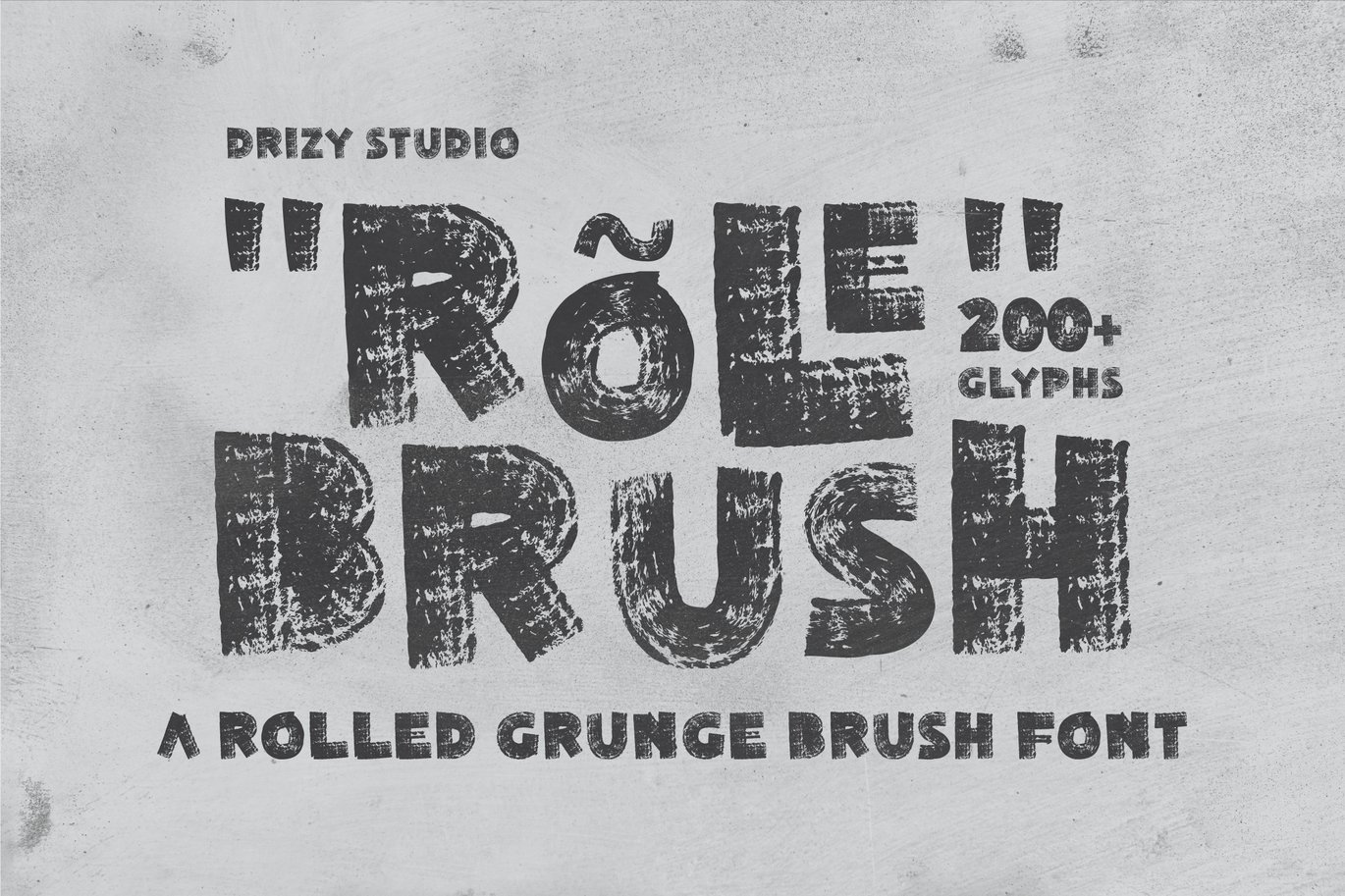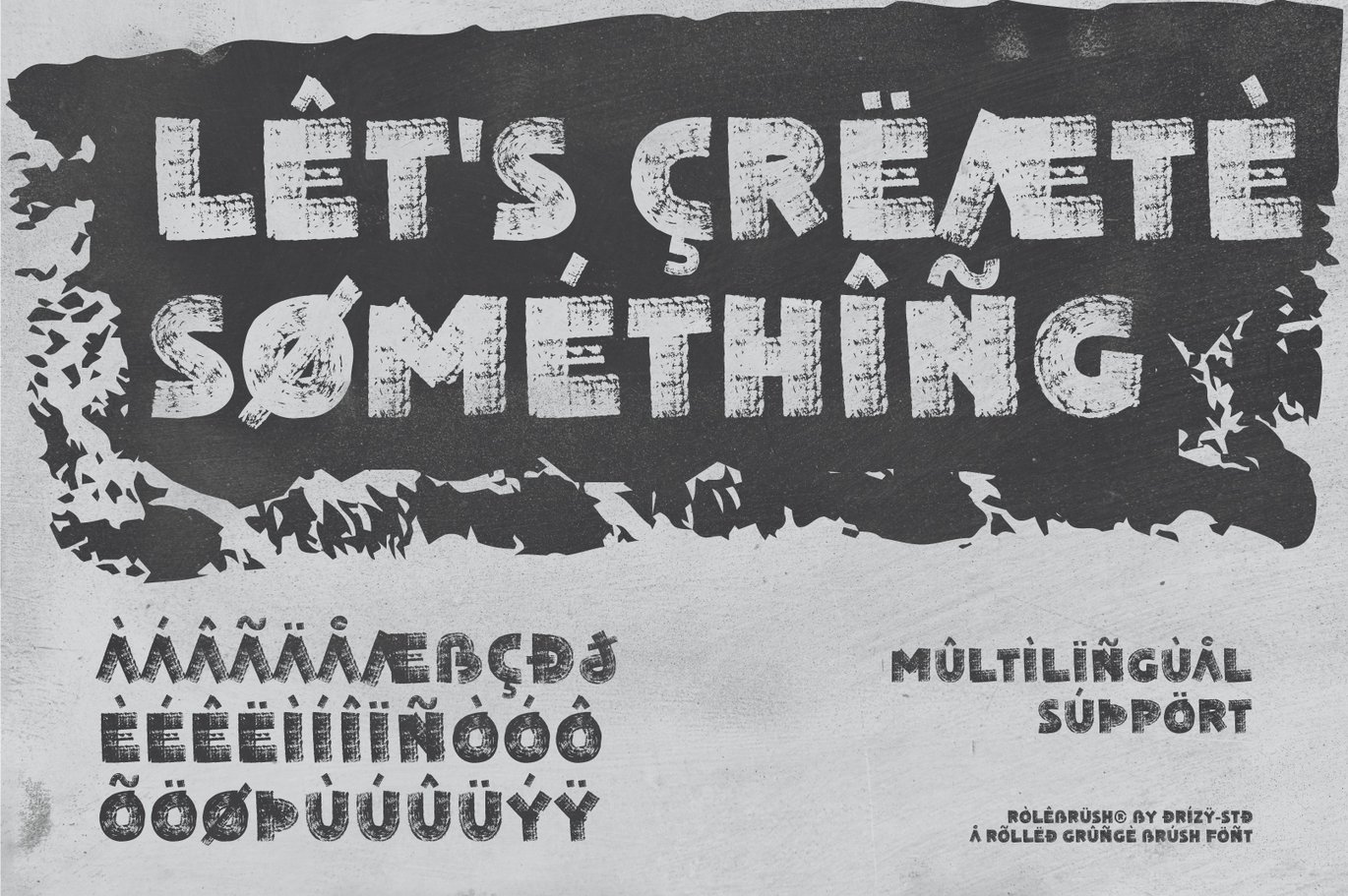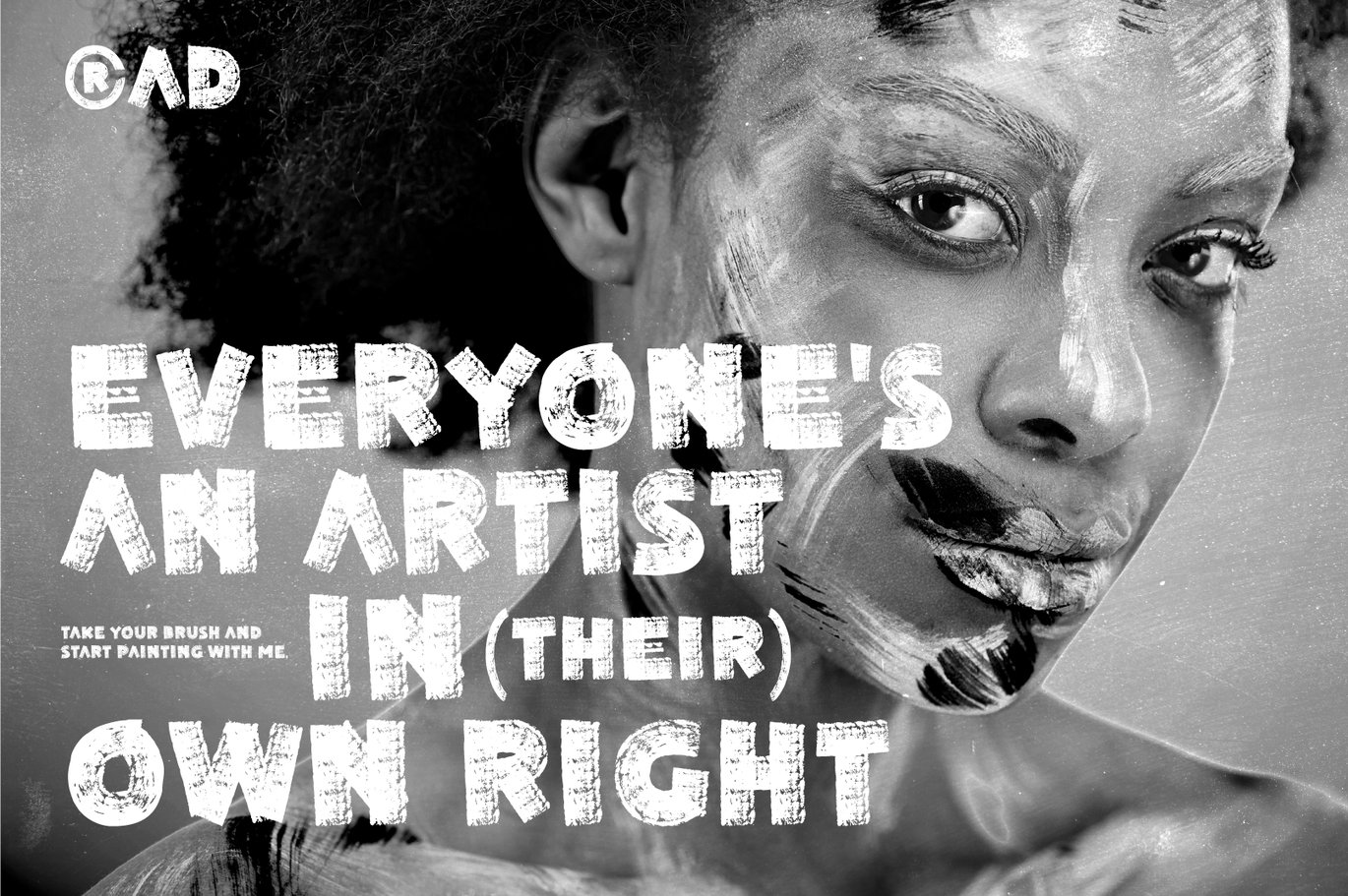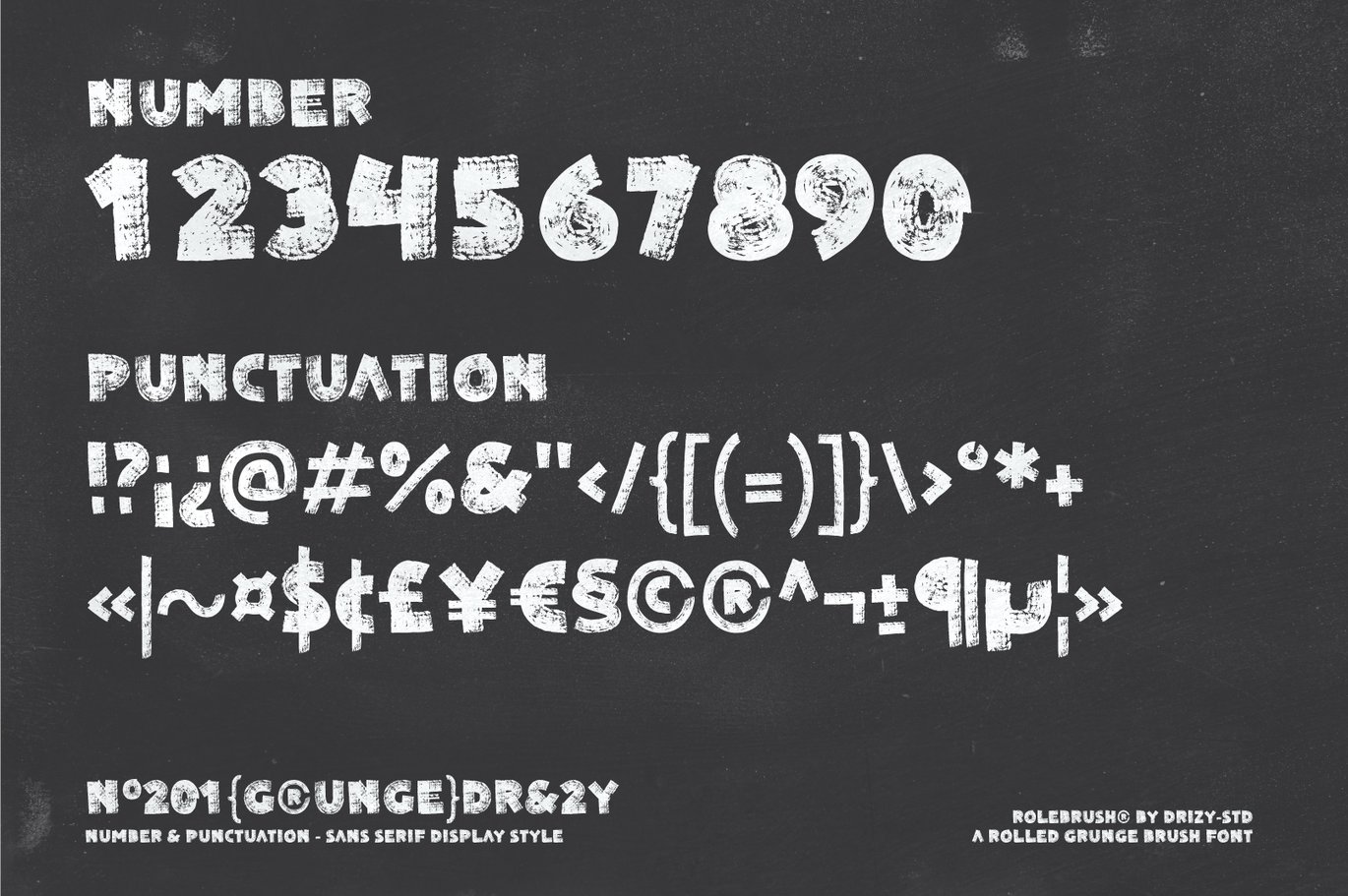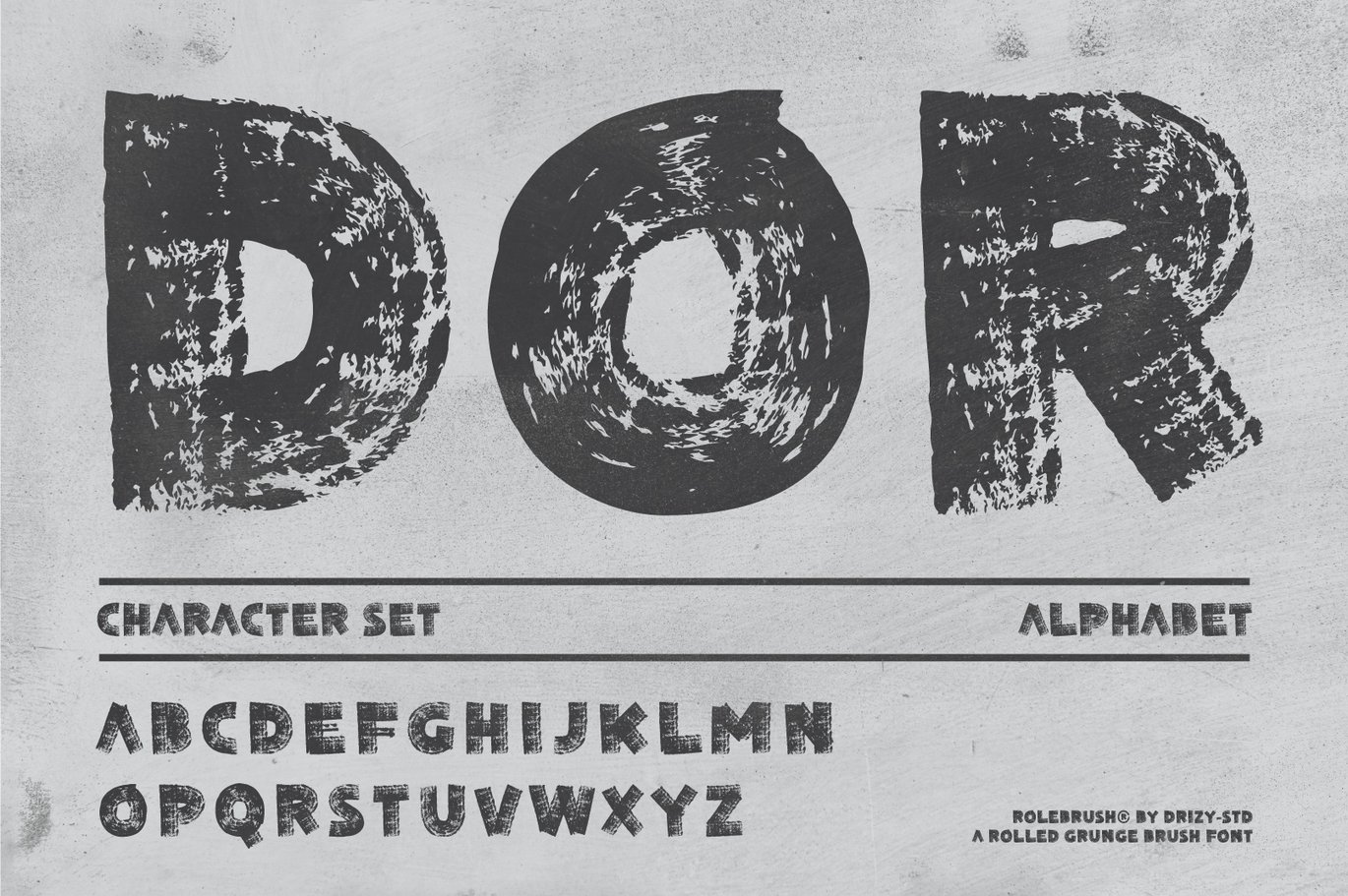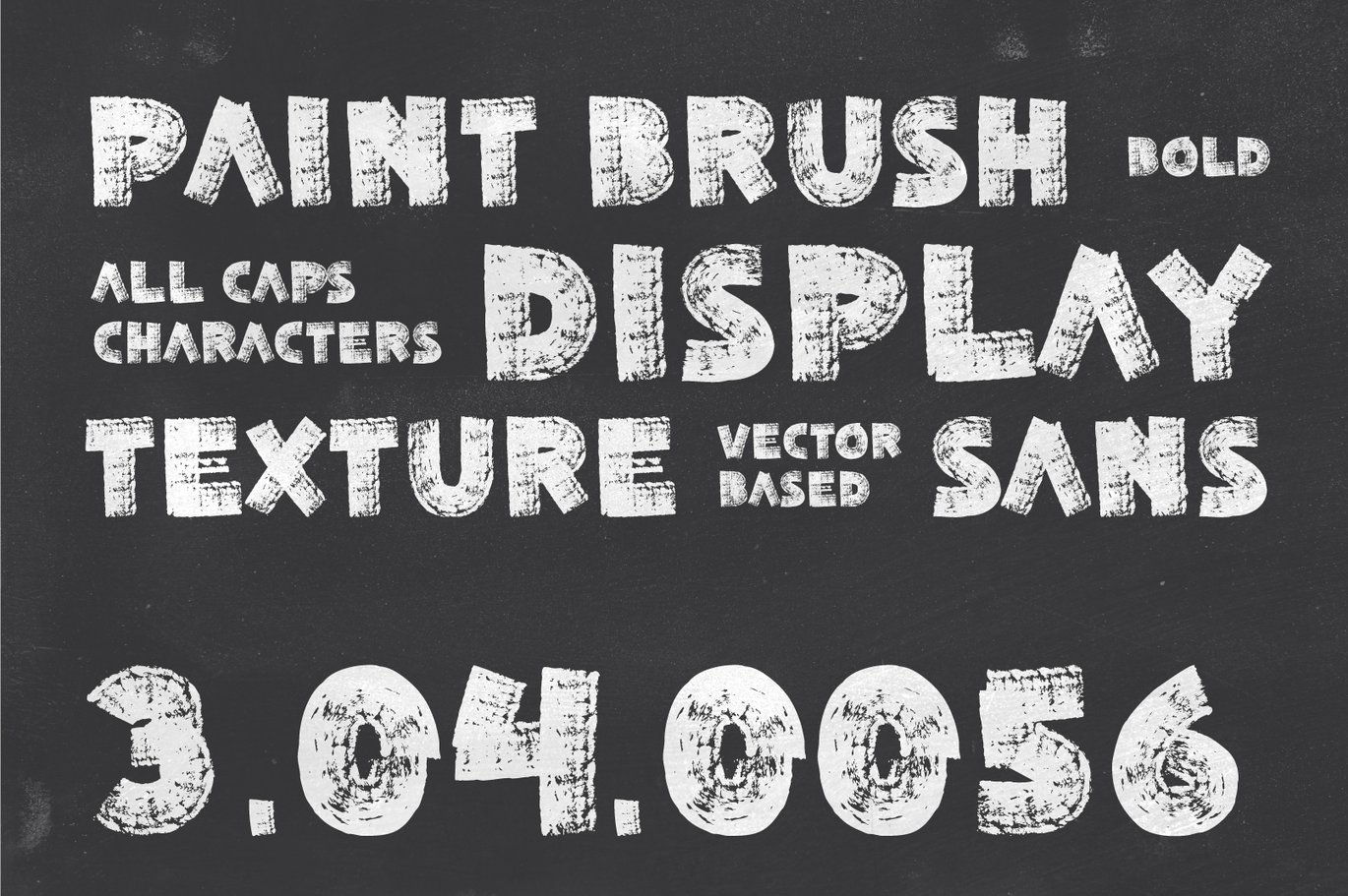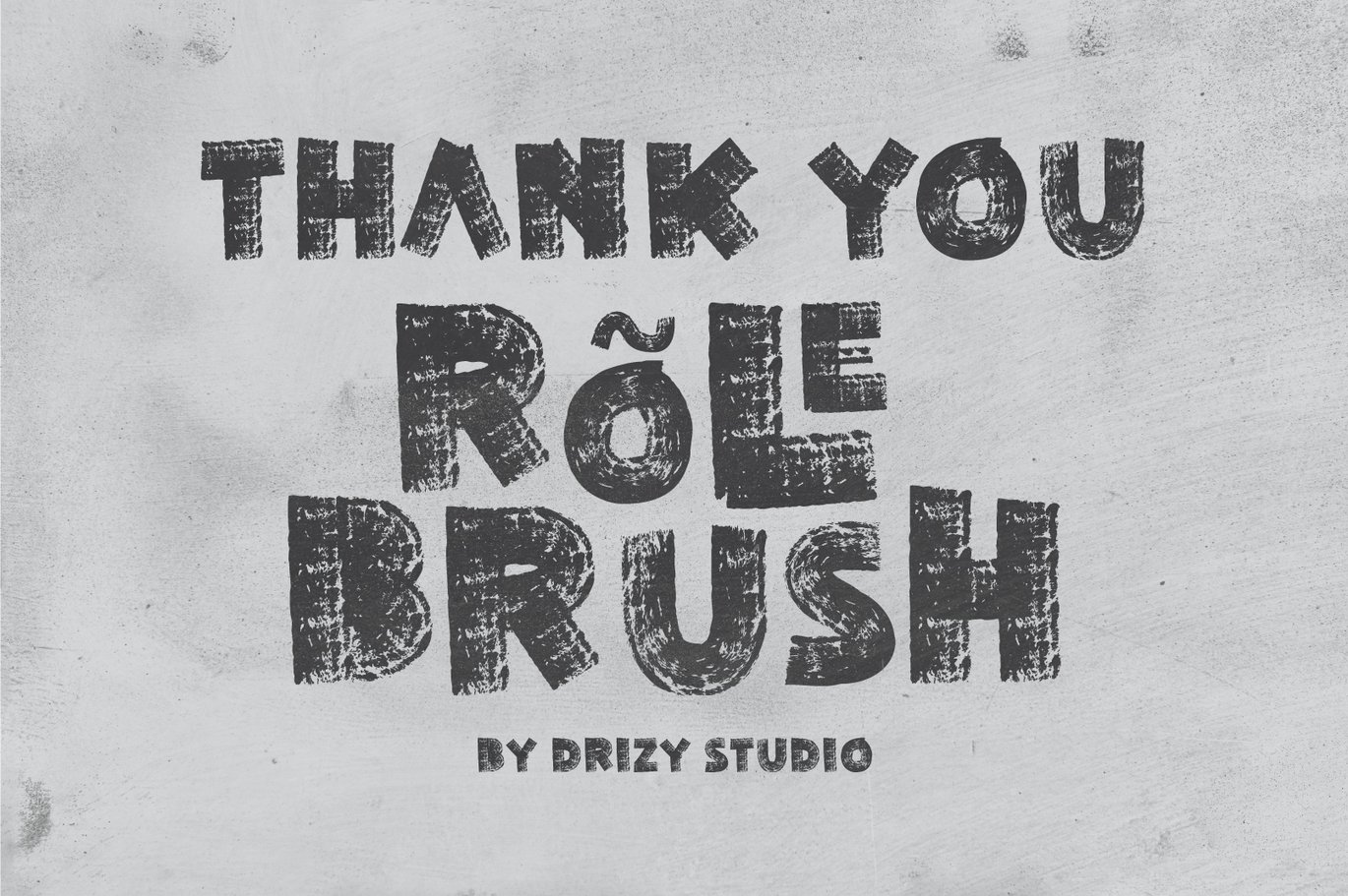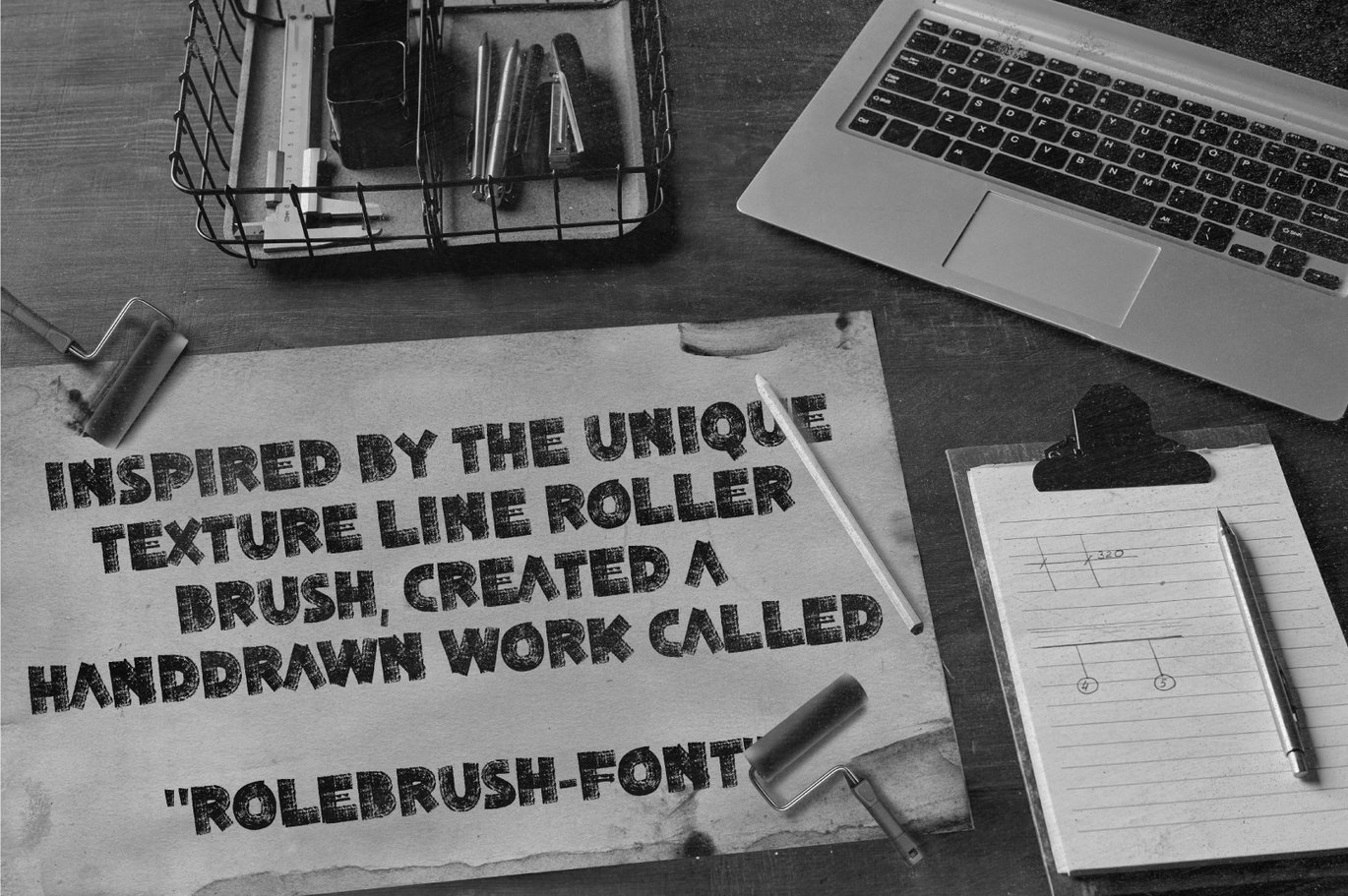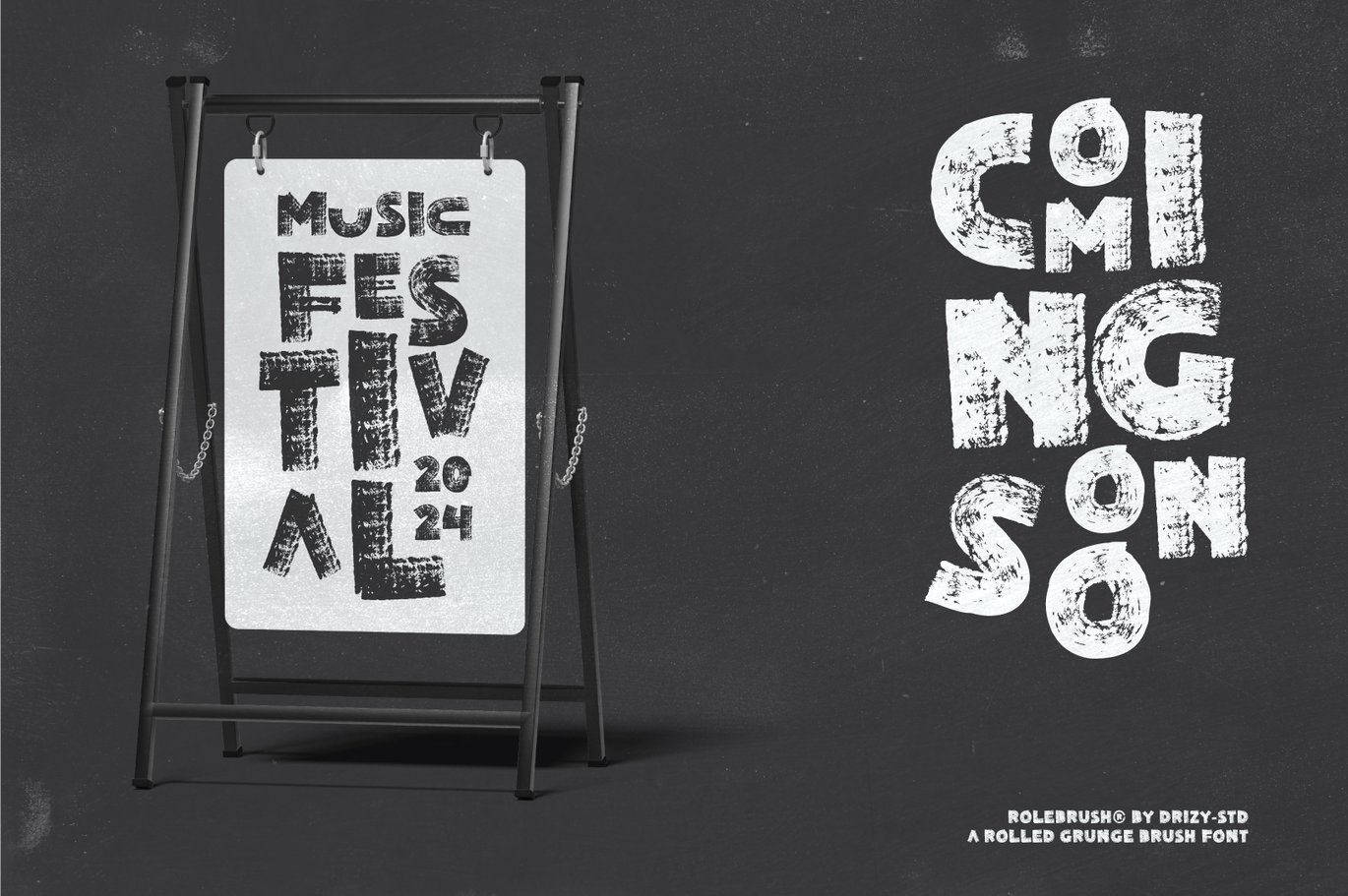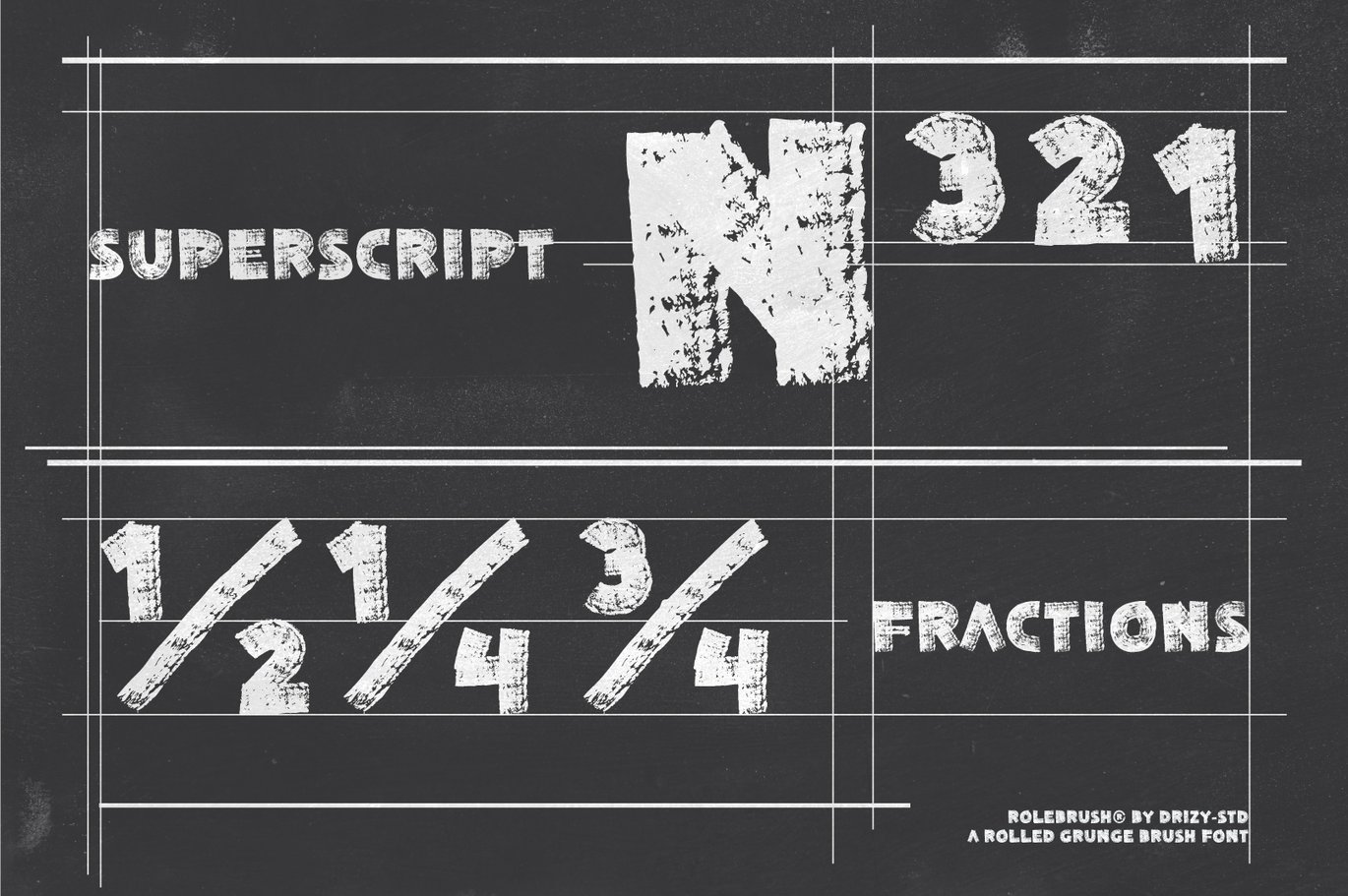
Rolebrush – Rolled Grunge Brush Font
Rolebrush Rolled Grunge Brush Font is a distinct typeface characterized by its grungy texture and rolled appearance, reminiscent of weathered soil. This font embodies a rugged and worn aesthetic, perfect for conveying a sense of authenticity and age in design projects. With its irregular strokes and distressed look, this font adds a rustic charm to any text or artwork. Whether used for posters, logos, or packaging, this font brings a touch of earthiness and character to your creative endeavors, capturing the essence of nature’s raw beauty.
Character Set (All Caps)